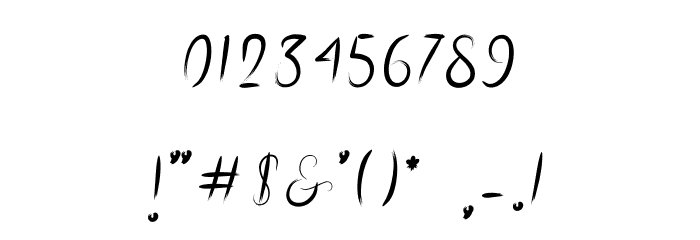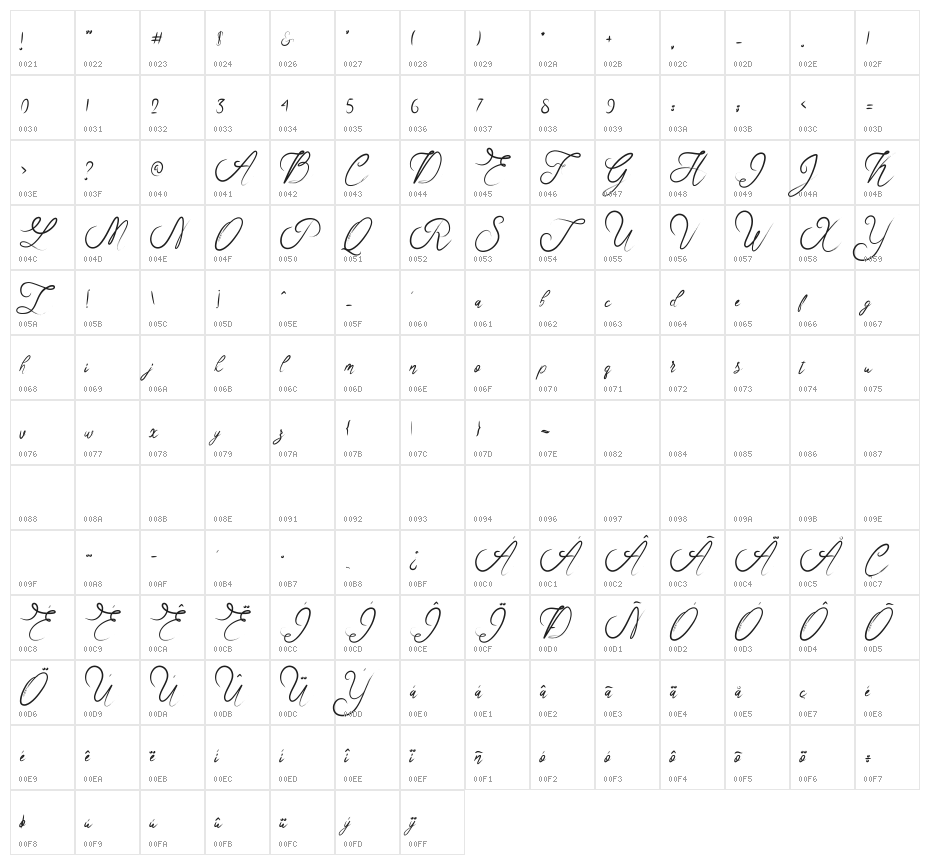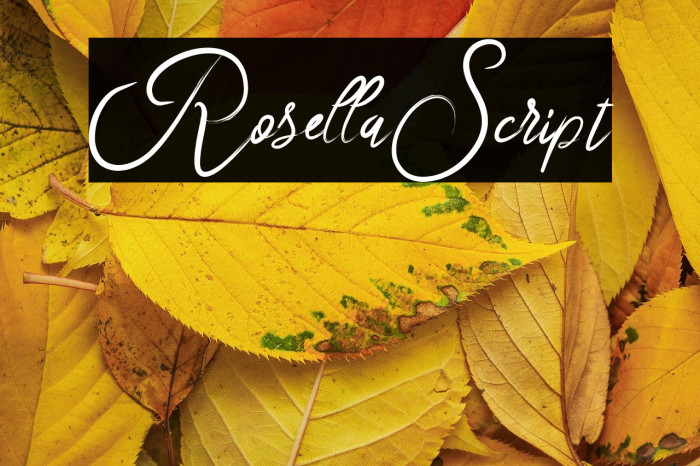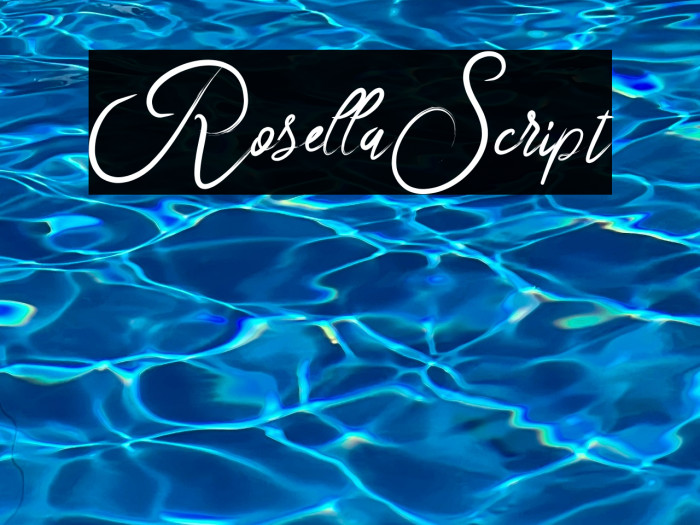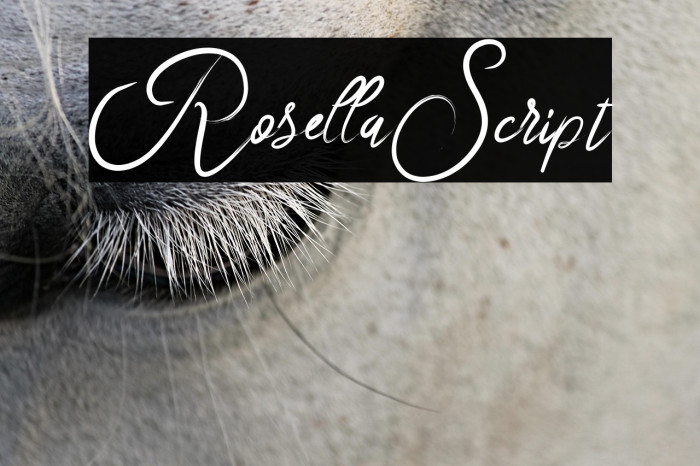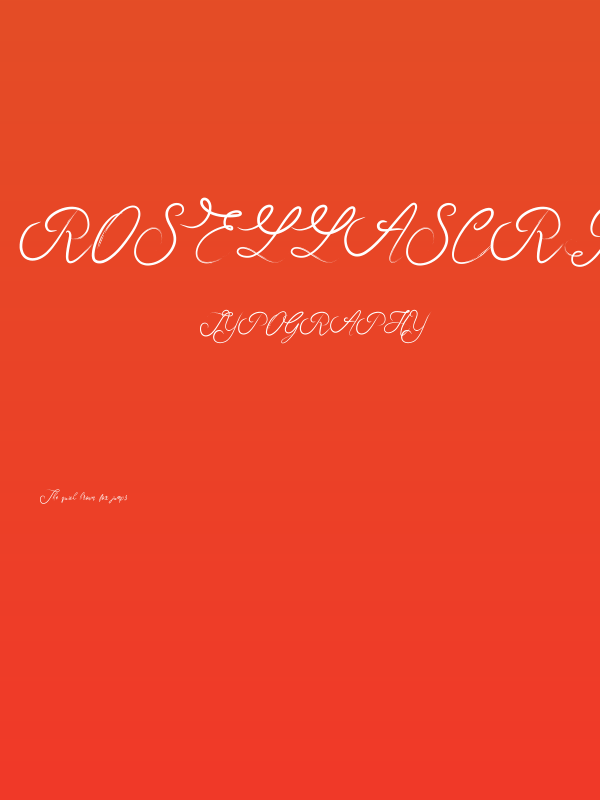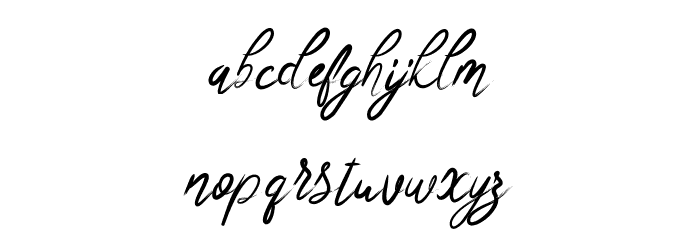
RosellaScript Font
RosellaScript Description
This elegant script font features flowing, interconnected letters that mimic the fluidity of cursive handwriting. The uppercase letters are ornate, with intricate loops and swirls, while the lowercase letters maintain a more subdued yet still graceful appearance. The numerals and special characters are designed to complement the overall style, maintaining the same fluidity and elegance. The font's delicate strokes and high contrast between thick and thin lines give it a refined and sophisticated look, making it ideal for formal invitations, branding, and decorative purposes.
Overall StyleElegant, Decorative
Use CaseHeadlines, Logos, Invitations
Proposed ProjectsIdeal for wedding invitations, elegant branding, greeting cards, and decorative projects.